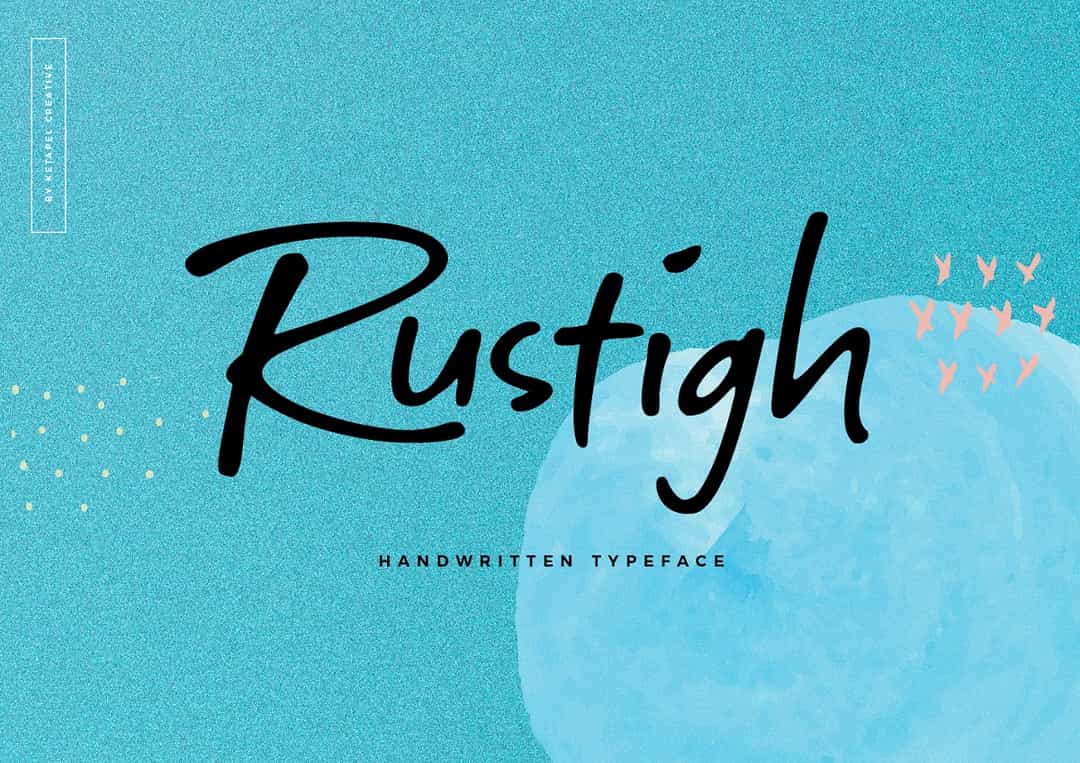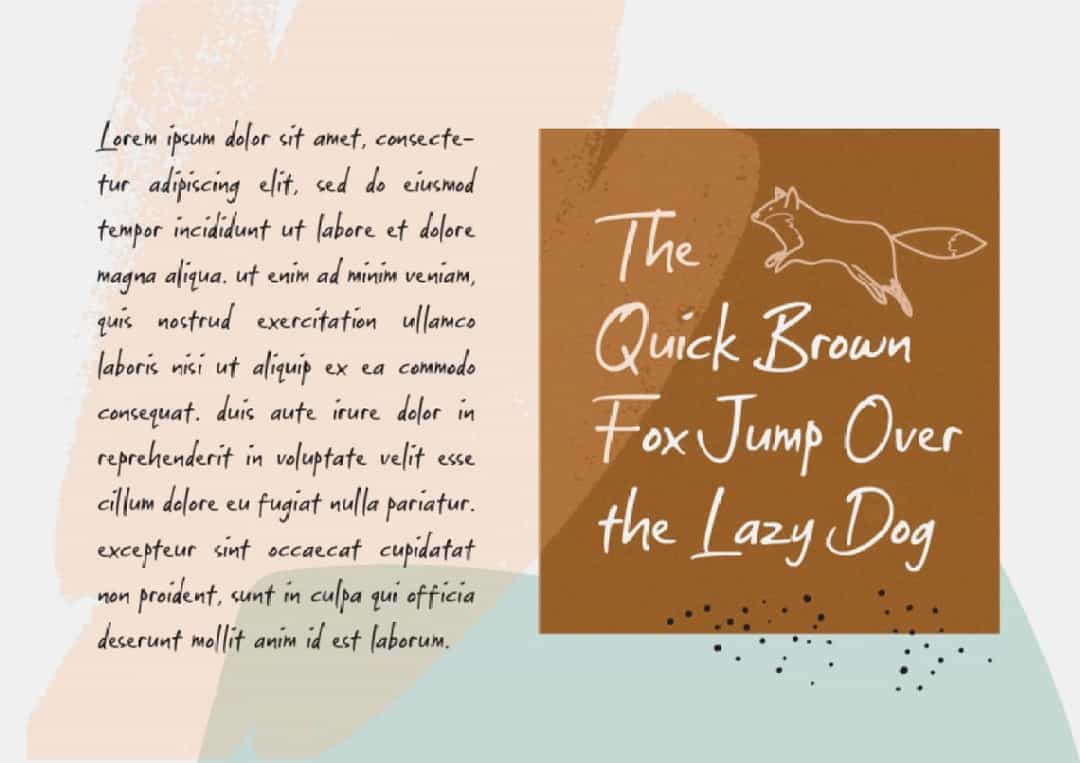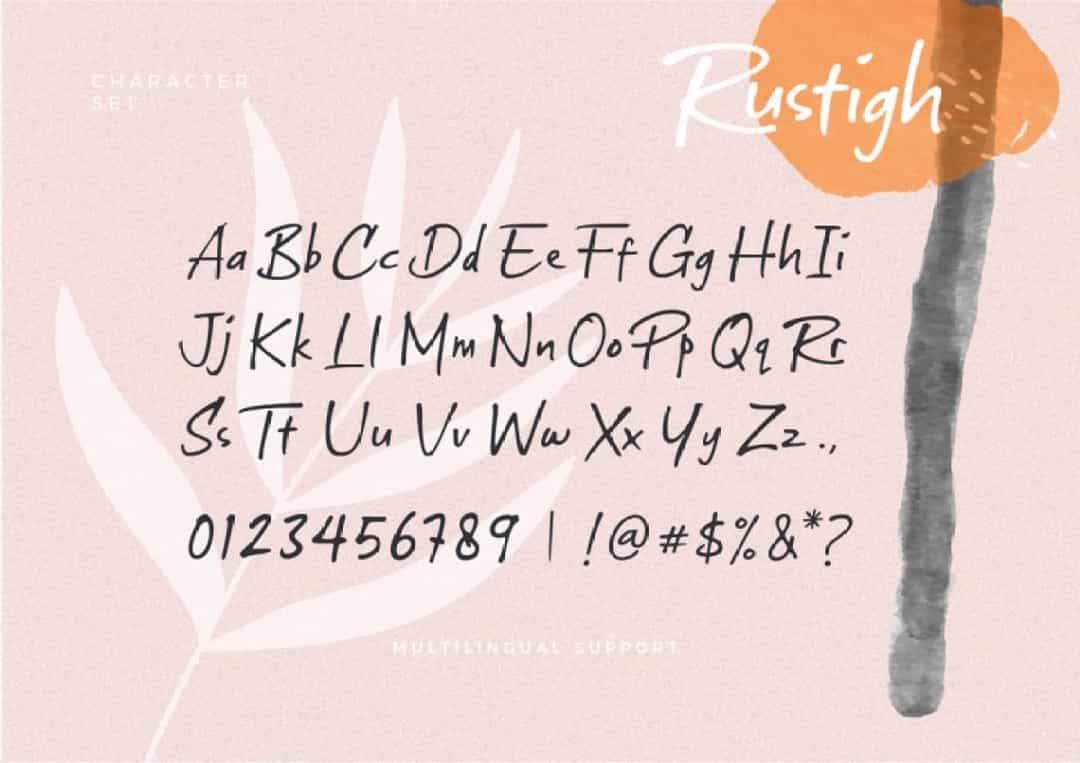
Rustigh is a decorative handwritten script face with a playful style of handwritten lettering and a dynamic design of the font. Ideal for Instagram and any other creativity at home, Rustigh will make sure that all your ideas will look amazing.